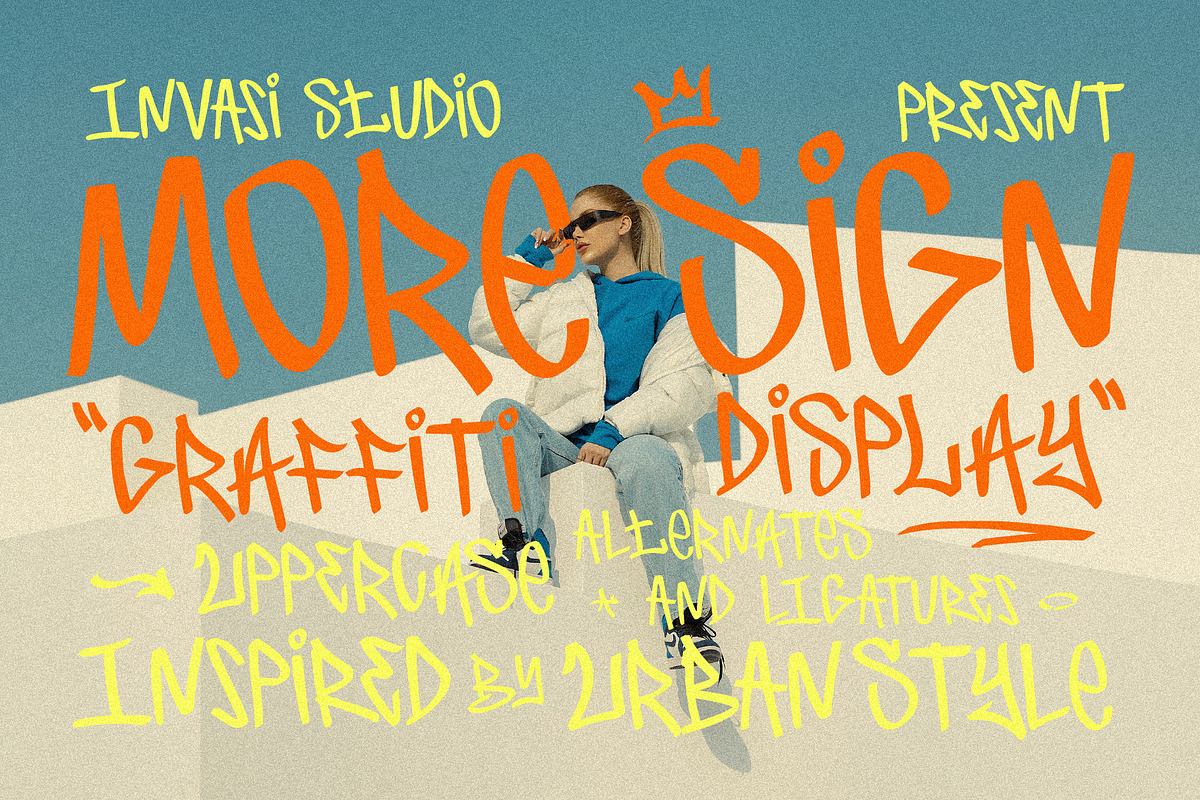
Moresign - Tagging Graffiti Font Free Download is a bold and rebellious typeface inspired by street art and urban tagging culture. With its dynamic strokes, rough edges, and raw aesthetic, this font is perfect for creating gritty, high-energy designs like music posters, streetwear branding, graffiti art, and more.
The font captures the essence of graffiti with its fluid, expressive letterforms, making it ideal for projects that demand an edgy, urban vibe. Whether you're designing for a hip-hop brand, skate culture, or simply want to add a rebellious flair, Moresign brings that street-level energy to your work.